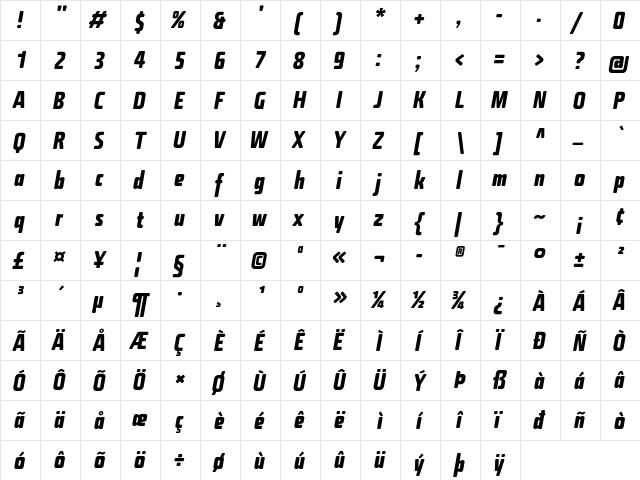
Fishmonger ECB Italic
Design Context for Fishmonger ECB Typeface
Fishmonger ECB is a composed and adaptable typeface that performs quietly and consistently across a wide range of design contexts. The dynamic lean of this cut emphasises speed and emphasis in any layout.
Pro Tip: Try Fishmonger ECB for annotation and caption copy alongside an upright companion — the contrast in angle creates a dynamic but ordered typographic system.